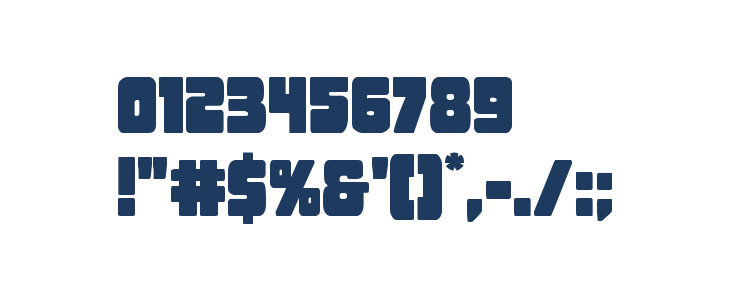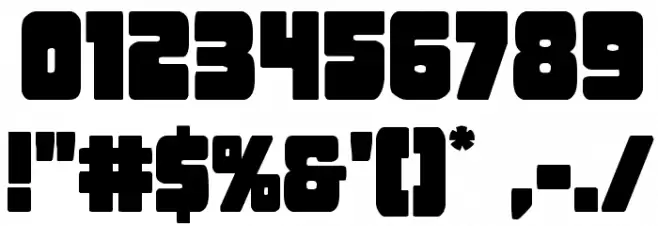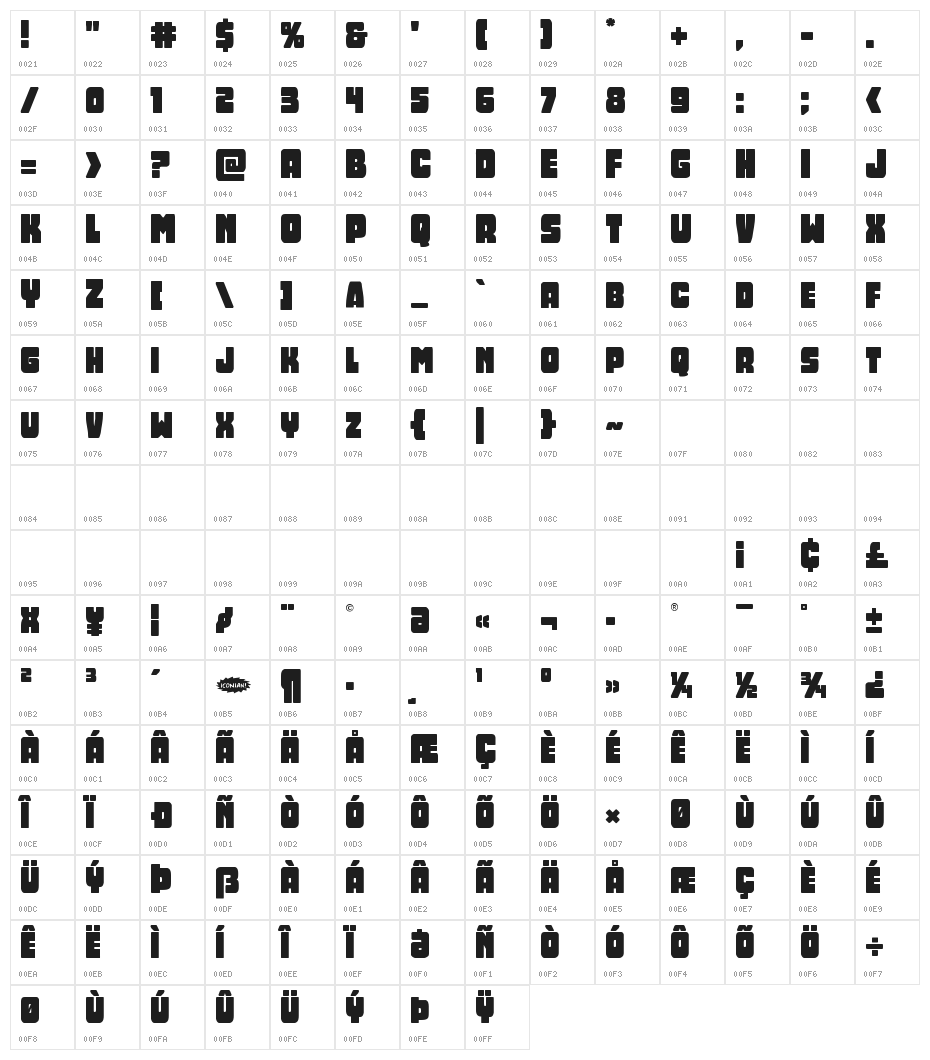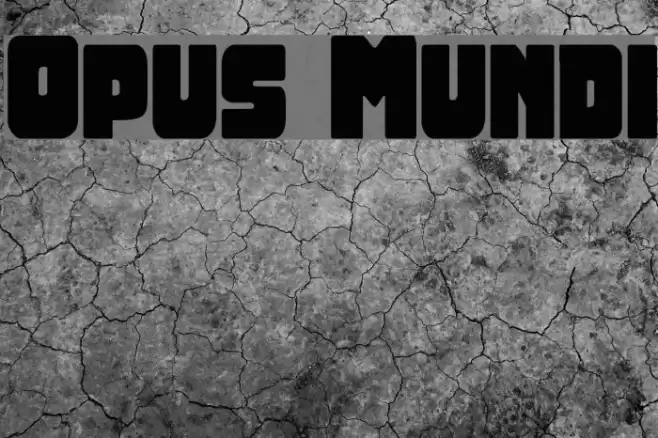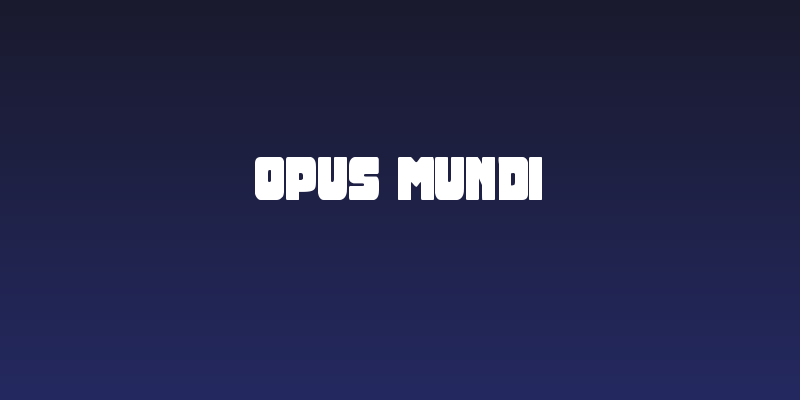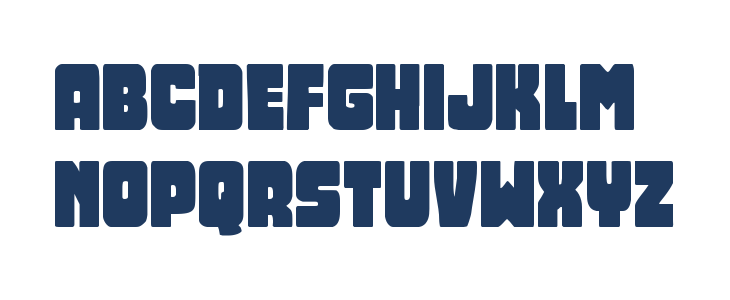
Opus Mundi Font
Opus Mundi Description
This font is a bold and impactful display typeface characterized by its thick, blocky letterforms. The uppercase and lowercase letters share a uniform width, creating a cohesive and structured appearance. The numbers and special characters maintain the same boldness, ensuring consistency across all glyphs. The font's design is geometric with rounded edges, giving it a modern yet approachable feel. Its strong presence makes it ideal for attention-grabbing headlines and logos, where readability and impact are crucial. The uniformity in stroke width across all characters contributes to its low contrast, enhancing its bold aesthetic.